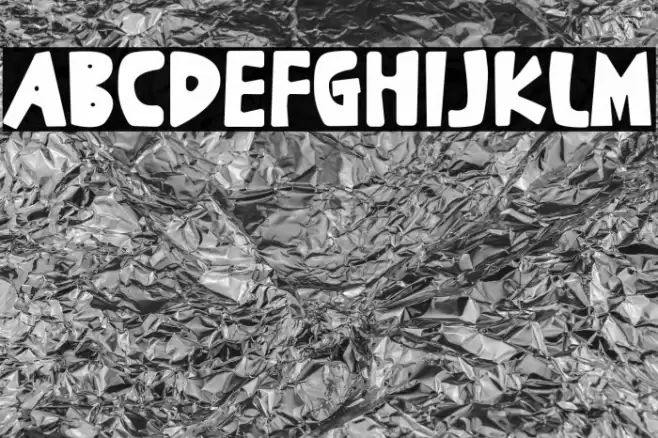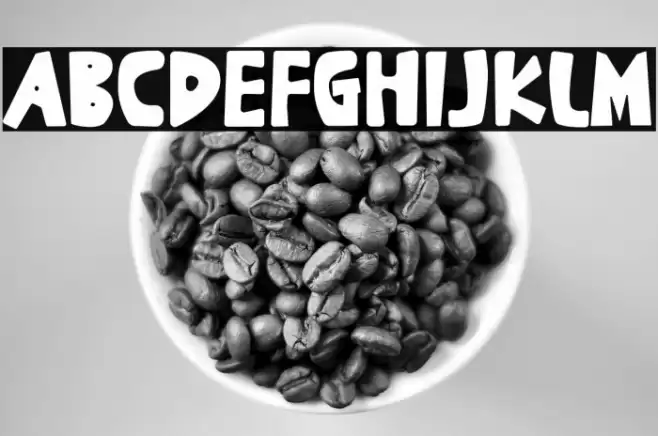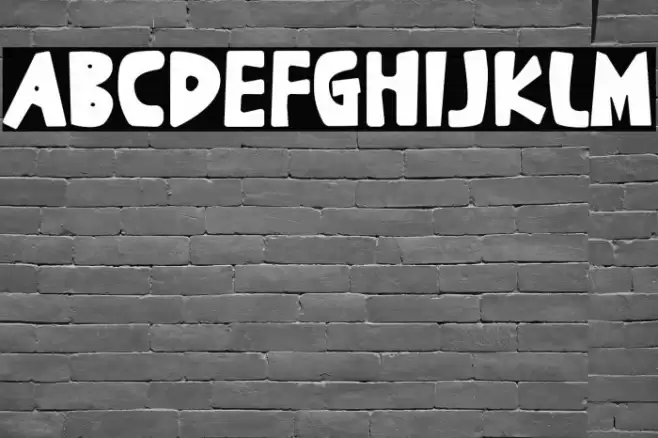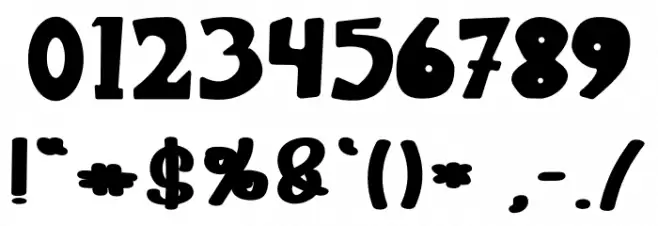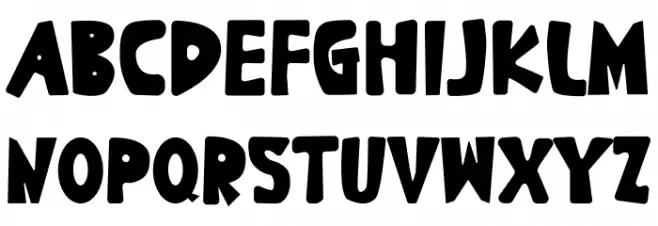
Winter White Font
Winter White Description
This font features bold, playful characters with a whimsical and slightly irregular design. The letters have a hand-drawn feel, with rounded edges and a consistent thickness throughout. The style is reminiscent of playful, childlike handwriting, making it ideal for projects that require a fun and informal touch. The numbers and special characters maintain the same playful aesthetic, ensuring a cohesive look across all text elements.
A bold, playful font with a whimsical, hand-drawn style from Cartoon fonts.
- Font: Winter White
- Proposed Projects: Ideal for children's books, playful branding, party invitations, and casual posters.
- Overall Style: Playful, Whimsical
Winter White UPPERCASE
Winter White LOWERCASE
Winter White OTHER CHARS